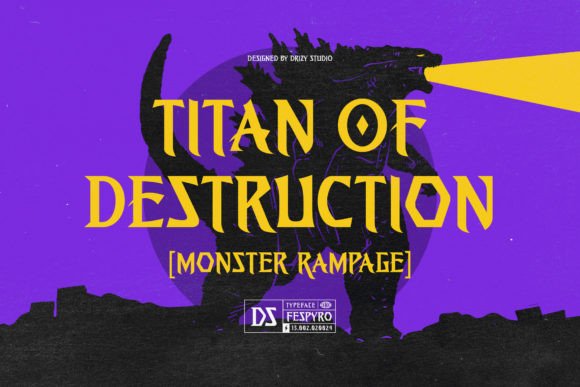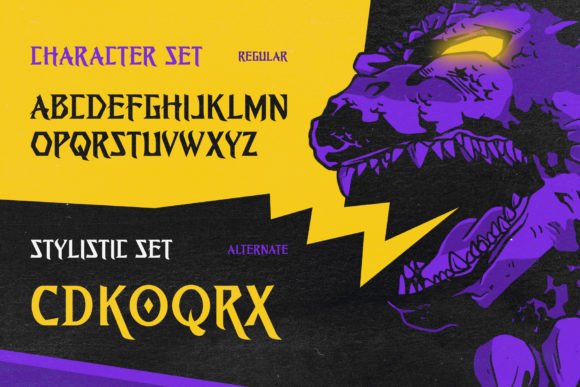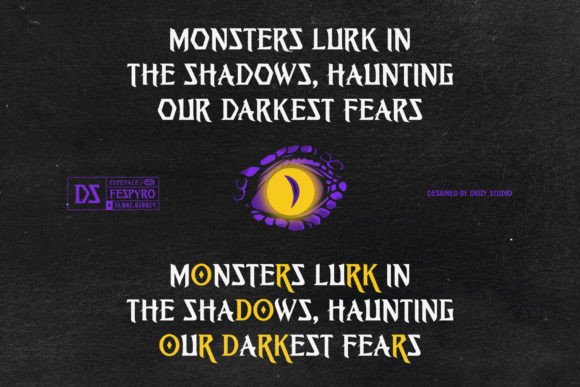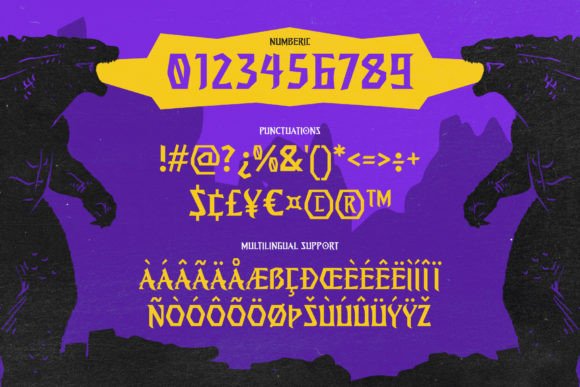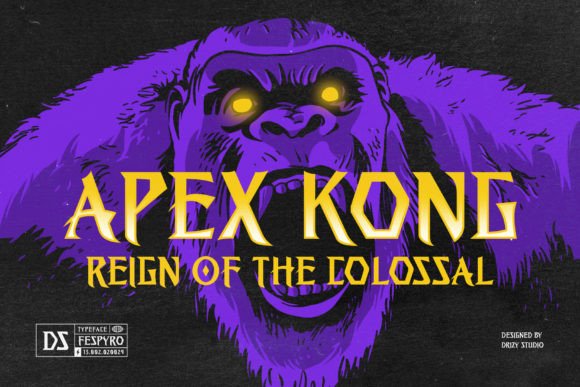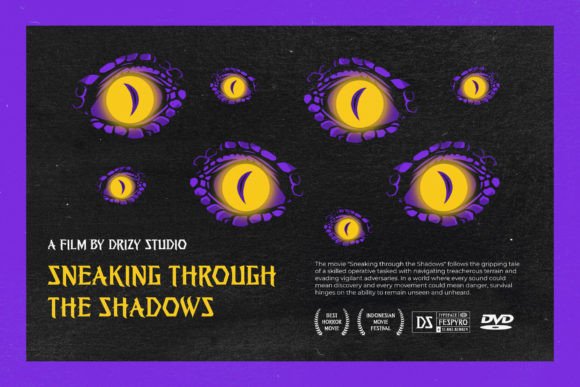
Unleash the Horror: Discover the Fespyro Font
I’ll never forget the night I was working on a horror movie poster project, and my client asked me to create a title that would send shivers down the audience’s spine. I scoured the internet for the perfect font, but nothing seemed to capture the eerie atmosphere I was looking for. That was until I stumbled upon the Fespyro Font. This hauntingly captivating typeface has been a game-changer for my design projects, and I’m excited to share its awesomeness with you! 😱
A Hauntingly Beautiful Typeface
Fespyro – Gothic Sharp Serif Font, also known as Fespyro – Gothic Sharp Horror Font, is a masterfully crafted typeface that evokes a sense of suspense, mystery, and horror. Its sharp serifs and bold lines make it an ideal choice for Monster & Kaiju vibes, horror movie posters, book covers, and any project that demands a touch of the macabre.
My Honest Review
Here’s what I love about Fespyro:
- ✨ Eerie and captivating design: Fespyro’s Gothic sharp serif design is perfect for creating a haunting atmosphere in your projects.
- ✅ Highly versatile: This font can be used for a wide range of projects, from horror movie posters to book covers and more.
- 🔥 Attention-grabbing: Fespyro’s bold lines and sharp serifs make it impossible to ignore.
And, like any font, it’s not without its quirks:
- 🤔 Limited use cases for non-horror projects: Fespyro’s strong horror theme might make it less suitable for projects that require a more neutral or friendly tone.
- ⚠️ May require additional editing: Depending on your design software, you might need to adjust the font’s settings to get the most out of its OpenType features.
The Designer Inspiration Behind Fespyro
Fespyro’s design is inspired by the dark and mysterious world of horror and the supernatural. Its creator aimed to craft a font that would evoke a sense of fear and unease, while still being aesthetically pleasing. The result is a typeface that’s both haunting and beautiful, perfect for adding a touch of horror to your design projects.
| Font Name | Fespyro Font |
| Author | Drizy Studio |
| What type of projects is Fespyro best suited for? | Fespyro is ideal for horror movie posters, book covers, and any project that demands a touch of the macabre. |
| Does Fespyro support OpenType features? | Yes, Fespyro supports OpenType features, including stylistic alternates and glyphs. |